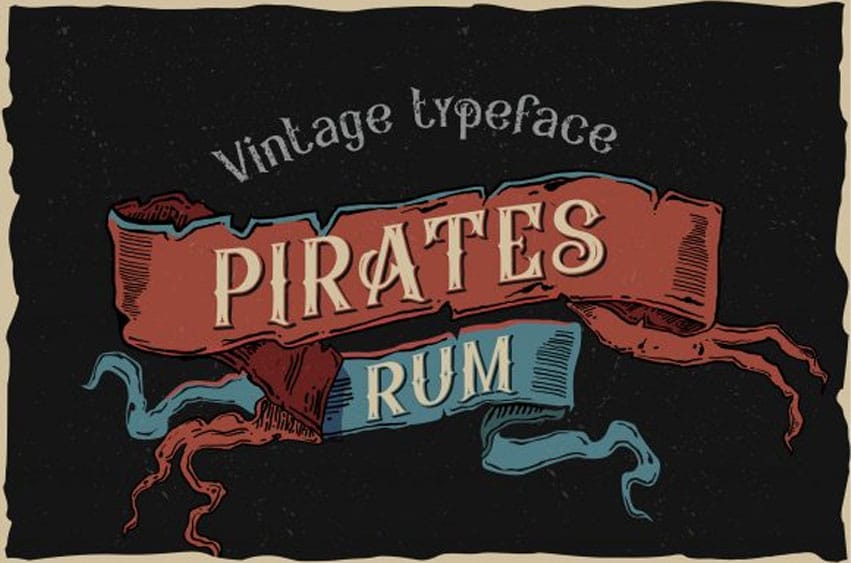
Pirates Rum Font is a bold, vintage styled display font.
This font reads as strong, confident, and dynamic and can add tons of nostalgic character to your designs.